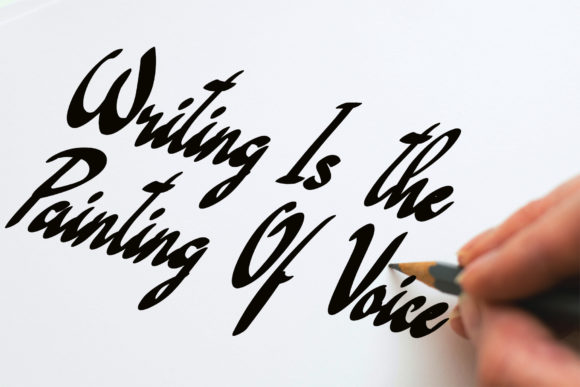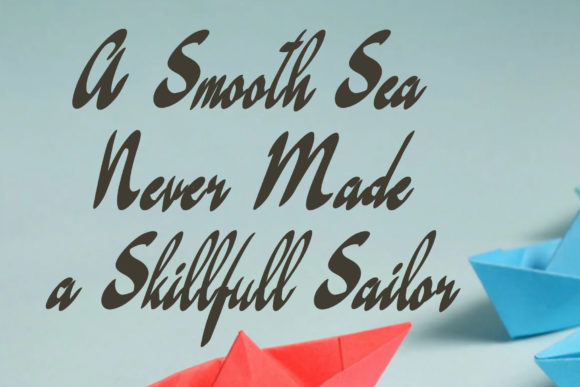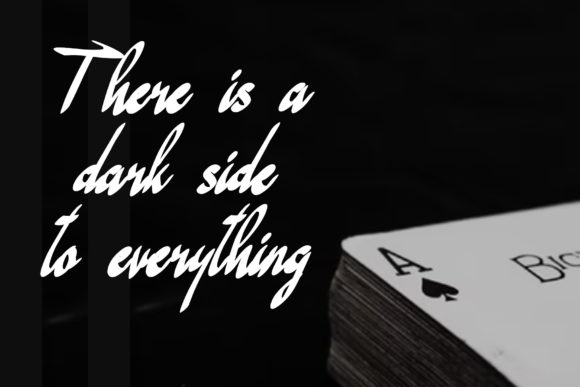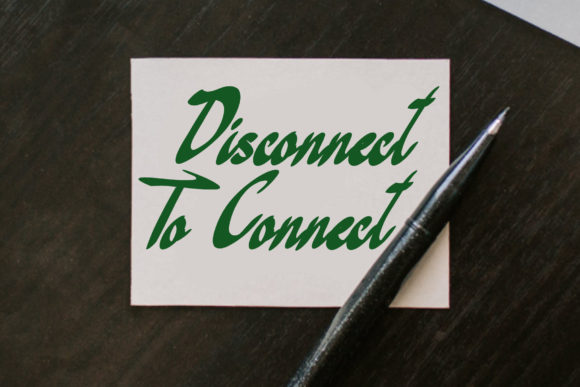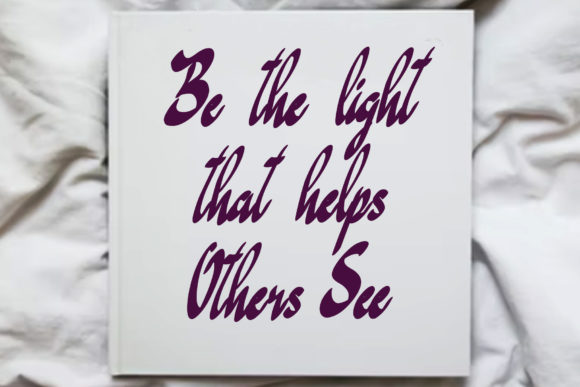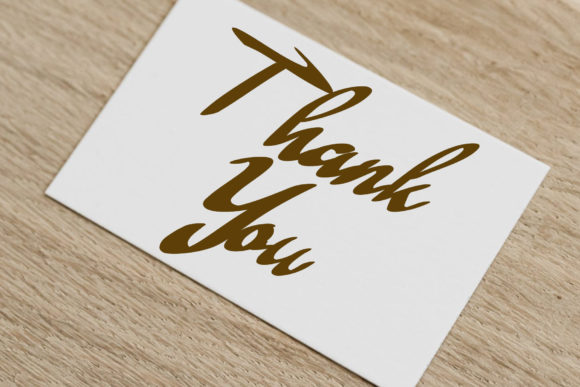
The Elegance of Calligraphy Fonts: Adding a Touch of Handwritten Charm to Your Designs
Calligraphy feels equally charming and elegant. It looks stunning on wedding invitations, thank you cards, quotes, greeting cards, logos, business cards, and every other design which needs a handwritten touch. In this article, we’ll explore the world of calligraphy fonts, their history, and how you can incorporate them into your designs to add a touch of sophistication and whimsy.
A Brief History of Calligraphy
Calligraphy has a rich history dating back to ancient civilizations, where it was used to create beautiful and intricate writings. The word “calligraphy” comes from the Greek words “kallos” meaning beauty and “graphein” meaning writing. Over the centuries, calligraphy has evolved, and various styles have emerged, each with its unique characteristics and techniques.
What is a Calligraphy Font?
A calligraphy font is a type of font that mimics the look of handwriting. It’s designed to replicate the fluid strokes and elegant letterforms of traditional calligraphy. Calligraphy fonts can range from simple and modern to intricate and ornate, making them suitable for a wide range of design applications.
Types of Calligraphy Fonts
There are several types of calligraphy fonts, each with its own distinct style and characteristics. Some popular types include:
• Brush Calligraphy: This style mimics the look of brush calligraphy, with bold and expressive strokes.
• Copperplate Calligraphy: This style is characterized by its elegant and refined letterforms, often used for formal invitations and events.
• Spencerian Calligraphy: This style features intricate and ornate letterforms, often used for decorative purposes.
• Modern Calligraphy: This style is a contemporary take on traditional calligraphy, often featuring bold and expressive letterforms.
Using Calligraphy Fonts in Your Designs
Calligraphy fonts can add a touch of elegance and whimsy to your designs. Here are some popular ways to use calligraphy fonts:
• Wedding Invitations: Calligraphy fonts are a popular choice for wedding invitations, adding a touch of romance and sophistication.
• Thank You Cards: Calligraphy fonts can add a personal touch to thank you cards, making them more special and meaningful.
• Quotes and Posters: Calligraphy fonts can add a touch of elegance to quotes and posters, making them more visually appealing.
• Greeting Cards: Calligraphy fonts can add a personal touch to greeting cards, making them more special and meaningful.
• Logos and Business Cards: Calligraphy fonts can add a touch of sophistication to logos and business cards, making them more memorable.
Tips for Choosing the Right Calligraphy Font
With so many calligraphy fonts available, choosing the right one can be overwhelming. Here are some tips to help you choose the right calligraphy font for your design:
• Consider the Occasion: Choose a calligraphy font that’s suitable for the occasion. For example, a formal event may require a more traditional calligraphy font, while a casual event may allow for a more modern font.
• Think About the Message: Choose a calligraphy font that reflects the message you want to convey. For example, a romantic message may require a more elegant and refined font, while a playful message may allow for a more whimsical font.
• Consider the Design Style: Choose a calligraphy font that complements your design style. For example, a modern design may require a more contemporary calligraphy font, while a traditional design may require a more classic font.
Font Name Calligraphy Font
Author Ansart
Calligraphy fonts are a beautiful and elegant way to add a handwritten touch to your designs. With their rich history, unique characteristics, and versatility, calligraphy fonts are a popular choice for designers and crafters. By understanding the different types of calligraphy fonts and how to use them effectively, you can add a touch of sophistication and whimsy to your designs.
Whether you’re designing wedding invitations, thank you cards, or logos, calligraphy fonts are sure to make your designs stand out. So next time you’re looking for a way to add a personal touch to your designs, consider using a calligraphy font. With a little practice and patience, you can create beautiful and elegant designs that will leave a lasting impression.